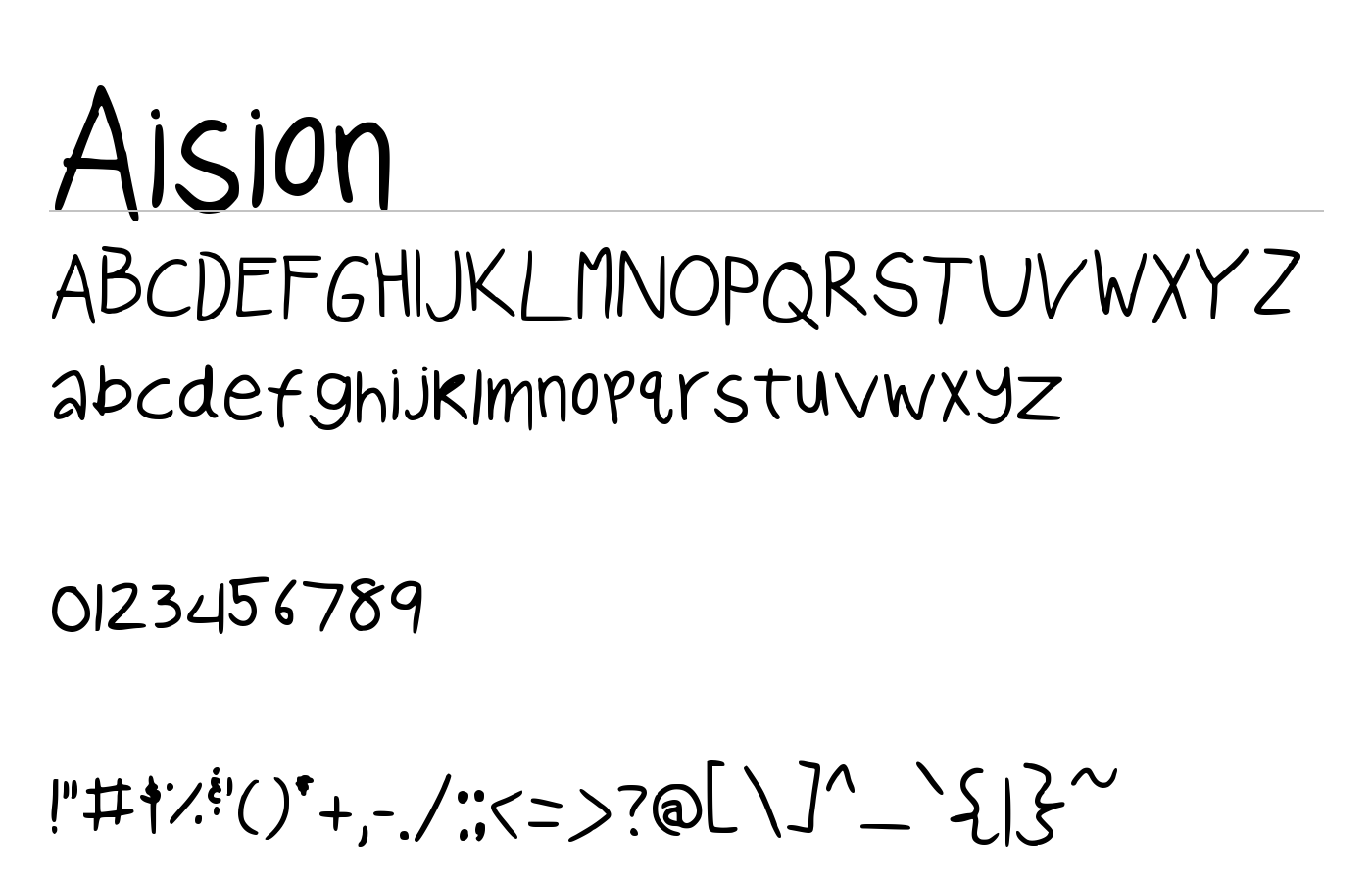
Aision is a playful, handwritten sans serif font with a casual, friendly feel. Its irregular strokes and varying letter heights give it a natural, informal appearance, making it perfect for creative projects, children's materials, or casual branding. This font works well in headlines and short texts where a lighthearted, approachable tone is desired.
Aision Font